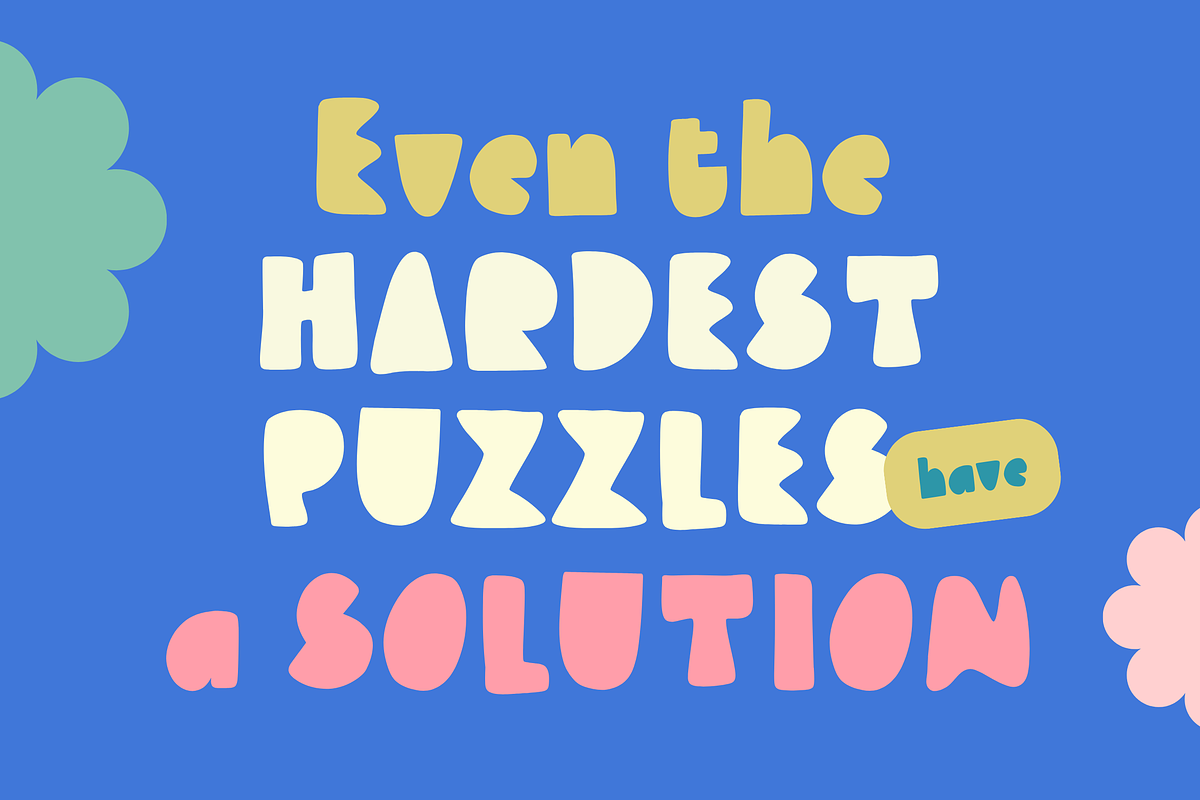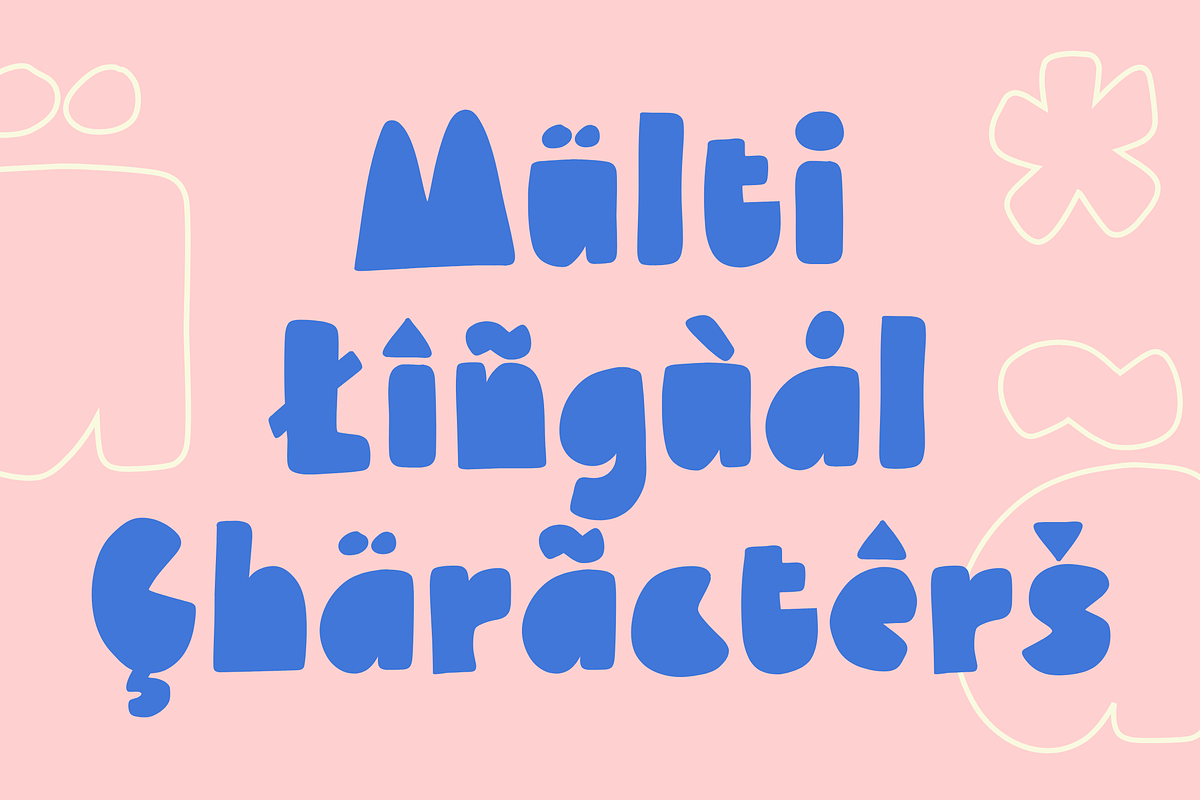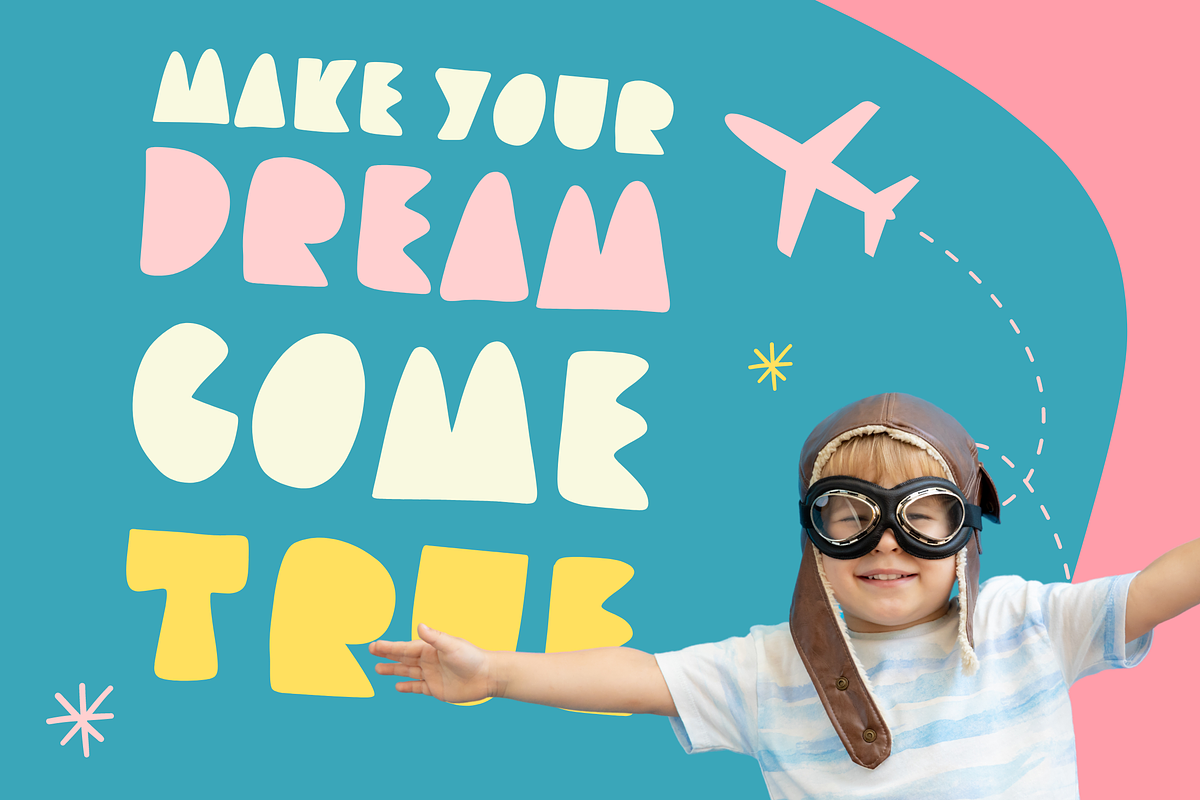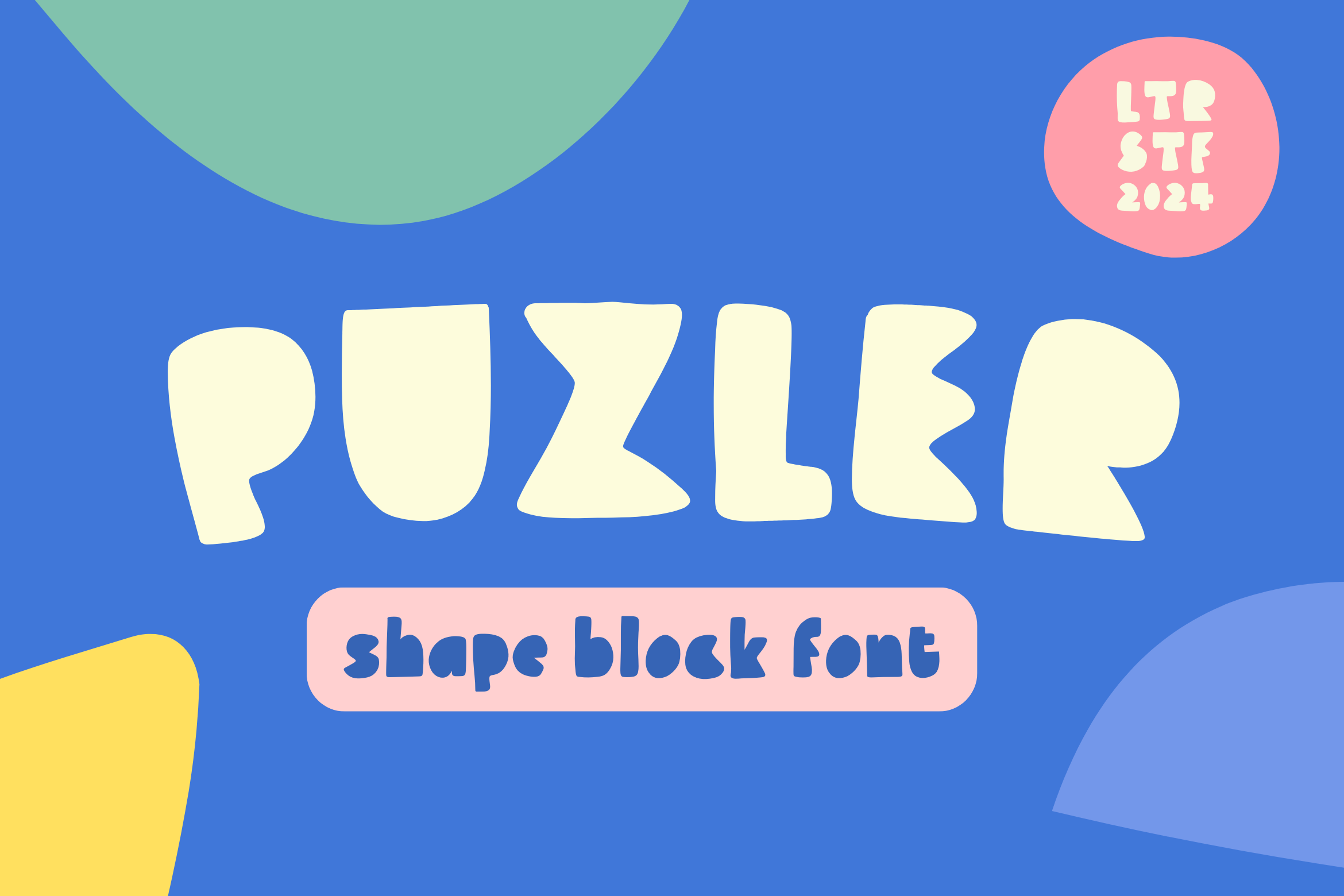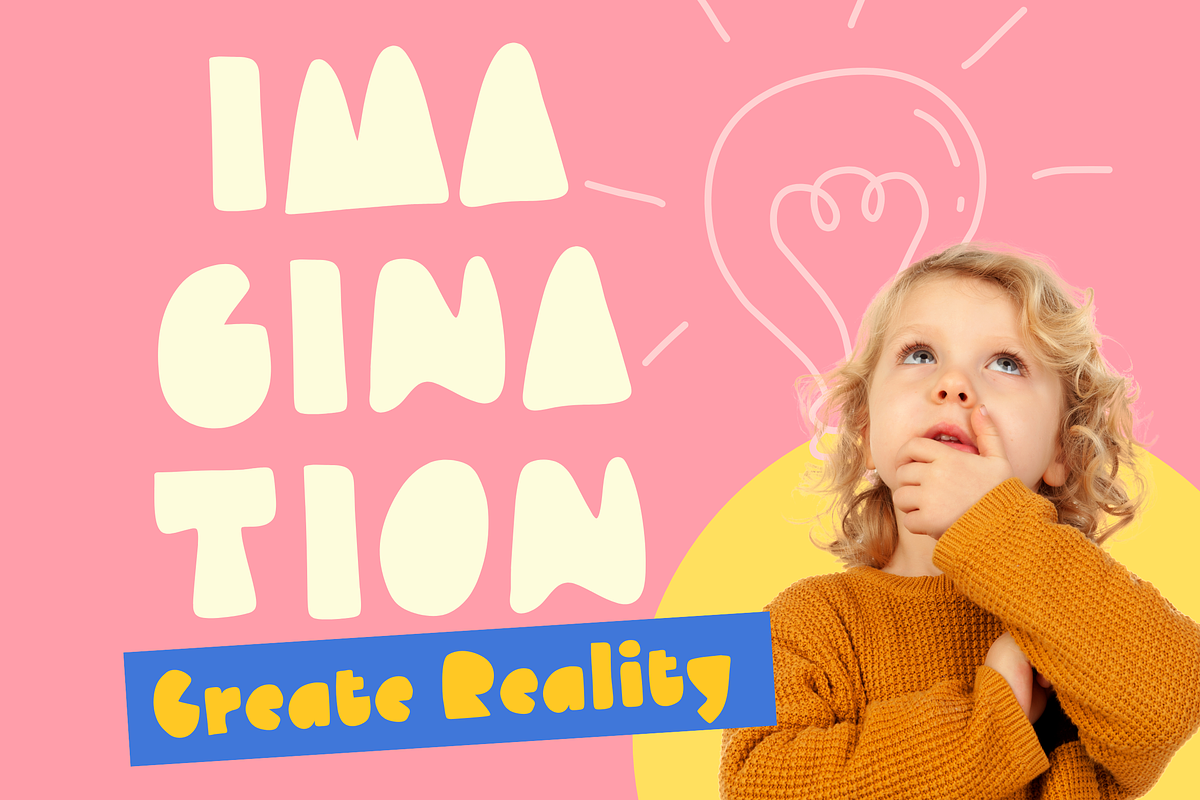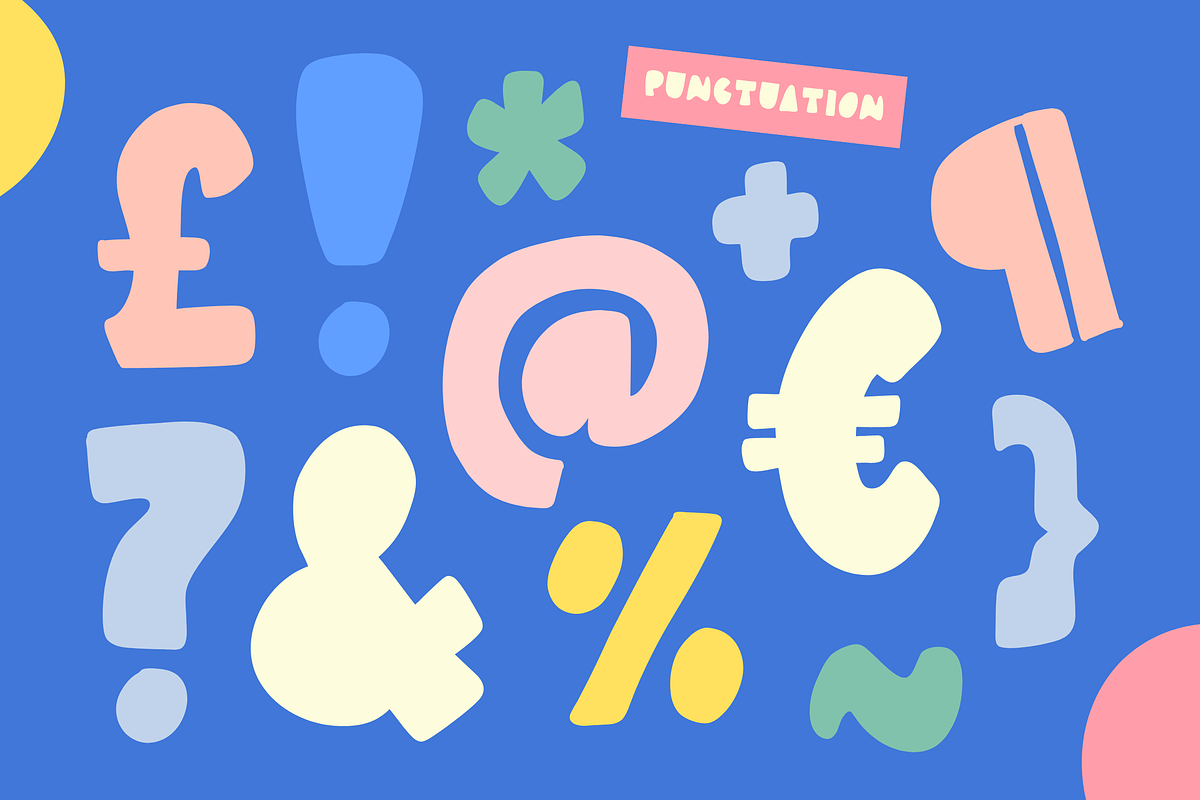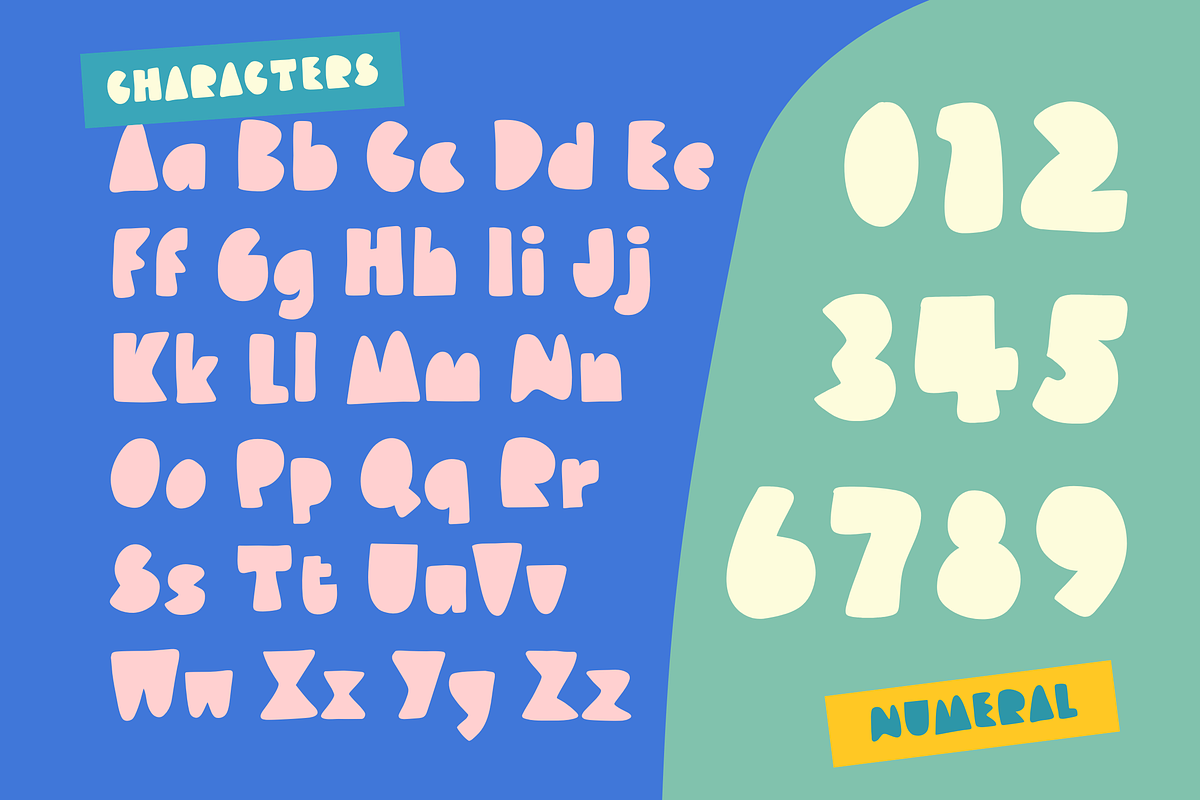
Puzler Font
Introducing Puzler, a delightful font inspired by the playful world of block puzzles. With its charming, simple shapes and vibrant design, Puzler brings a fresh, fun twist to your projects without compromising readability. Perfect for children's books, games, or any creative project that calls for a touch of whimsy, Puzler strikes the perfect balance between playful and practical. Add a splash of personality to your designs with this one-of-a-kind, easy-to-read font that’s sure to capture attention and spark joy!
- Numeral and punctuation
- Multilingual suppor